Typogram Studio offers a rotating collection of free premium fonts for designers through our monthly font freebie calendar. Each release features a carefully curated display or text typeface you can use in personal or commercial projects. Bookmark our freebie font calendar to discover new high-quality fonts added every month. This month’s release is inspired by Valentine’s Day, Super Bowl season, and Lunar New Year seasons, blending romance, boldness, and playful energy into a curated collection of twelve premium fonts—completely free to use.
Typography Advent is Typogram Studio’s ongoing series showcasing our monthly font freebie calendar, with curated premium typefaces that designers can use in personal or commercial projects. Designers can unlock carefully selected, high-value fonts for free—each chosen to elevate branding, editorial design, packaging, and expressive display typography.
Below is a breakdown of each free premium font included in Typogram Studio’s February collection, along with its classification and ideal use cases.
Deseo
- Classification: Script
- Purpose: Display
Deseo is an elegant Spencerian script font inspired by early 20th-century masters and Italian hand calligraphy. It includes variable weight and size, alternates, flourishes, and ornamental accents, making it ideal for refined display typography, romantic branding, and expressive headlines.
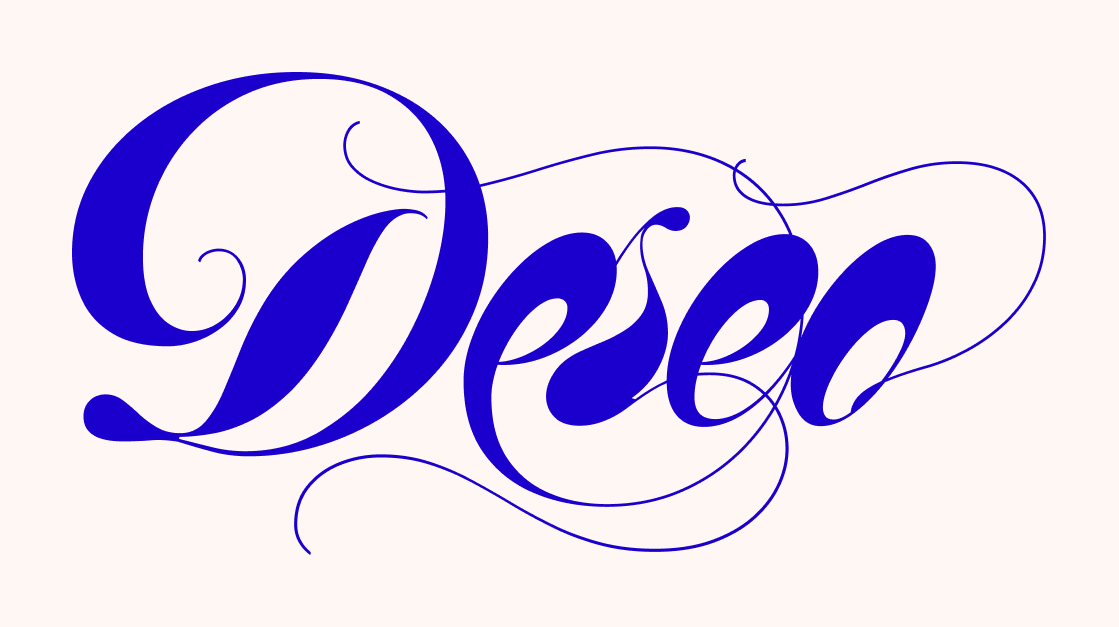
Goudy Text
- Classification: Blackletter
- Purpose: Display
Goudy Text is a historic blackletter typeface designed by Frederic Goudy. Featuring shaded variants, ligatures, and alternates, it works beautifully for logos, editorial headlines, branding, and designs that blend classic tradition with modern aesthetics.
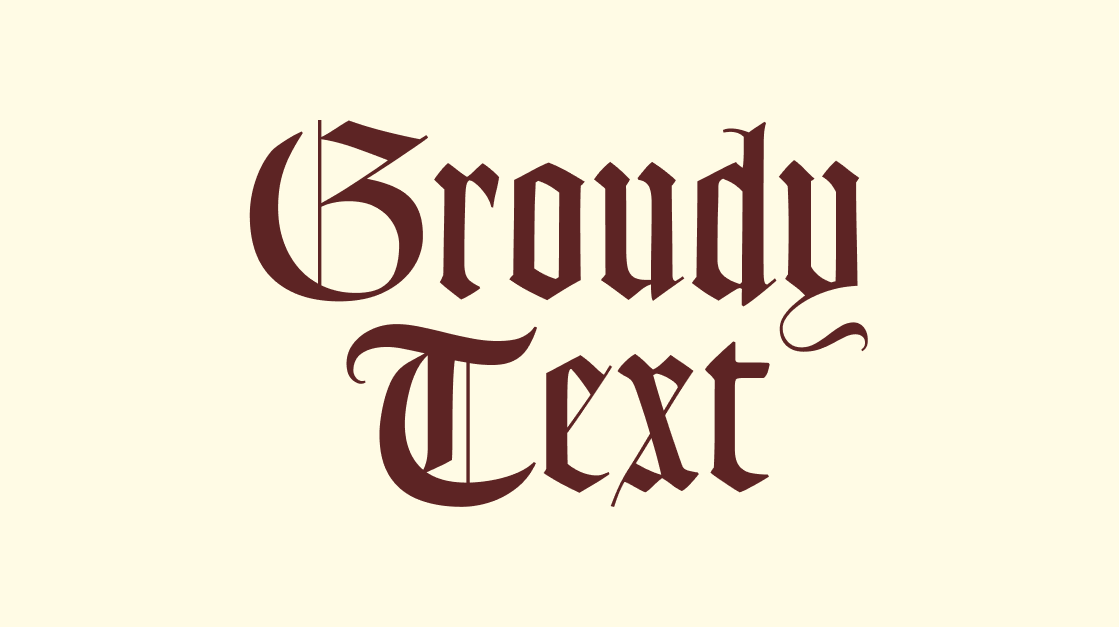
Devil’s Haircut
- Classification: Display
- Purpose: Display
Devil’s Haircut is a bold font duo with a strong punk attitude. Its expressive styles are well suited for album covers, packaging design, film titles, editorial layouts, and any project that demands rebellious, high-impact display typography.
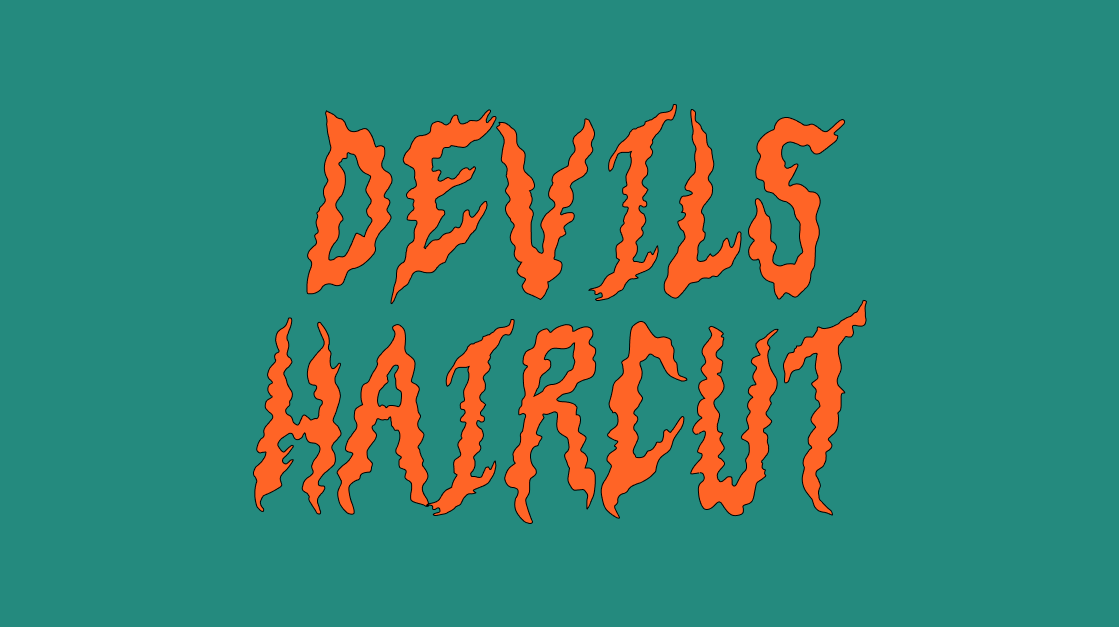
Jacobean Initials
- Classification: Decorative
- Purpose: Display
Jacobean Initials is a decorative initial font featuring framed and unframed styles, plus four-layer color options. It’s perfect for drop caps, stationery, invitations, food labels, album covers, and historic or vintage-inspired typography projects.
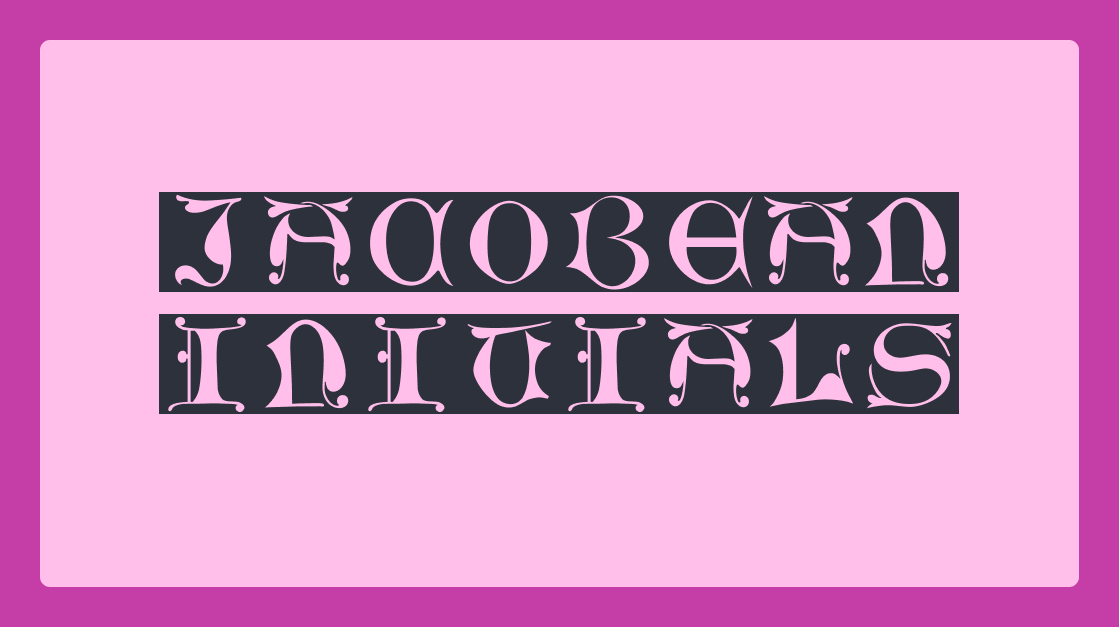
Ekamai
- Classification: Handwriting
- Purpose: Display
Ekamai is a friendly, plump script font with soft, playful curves. Its approachable personality makes it a great choice for food packaging, logos, magazine headlines, branding, and cheerful display typography.
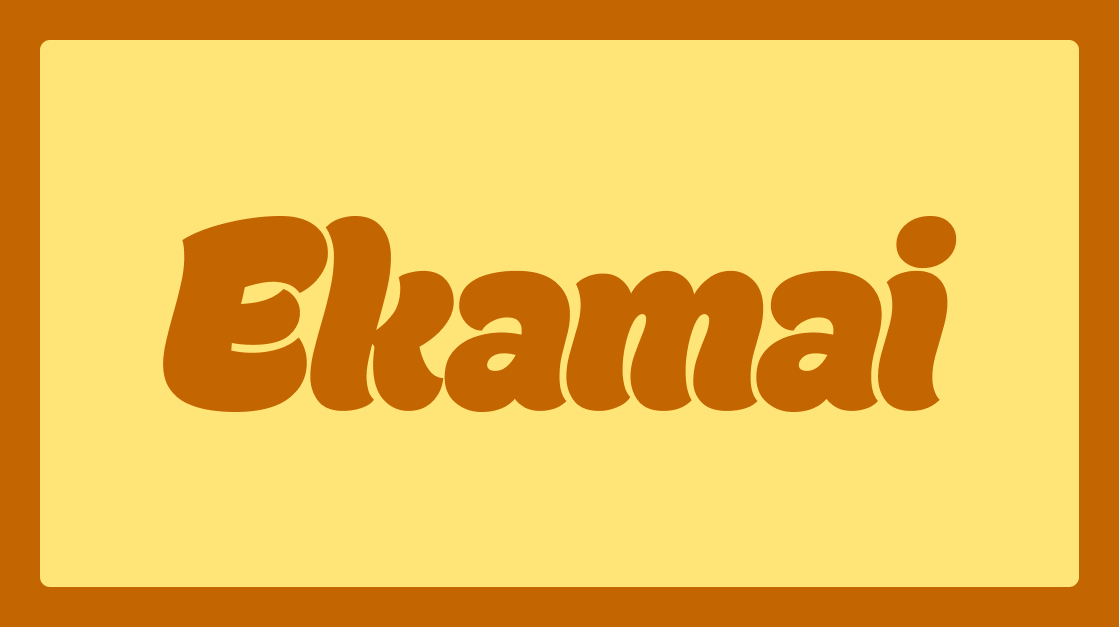
Ginsburg
- Classification: Sans Serif
- Purpose: Display
Ginsburg is a modern all-caps display font built from geometric shapes and wavy lines. With stylistic alternates included, it’s ideal for posters, headers, logos, TV titles, podcast covers, and bold, expressive branding design.
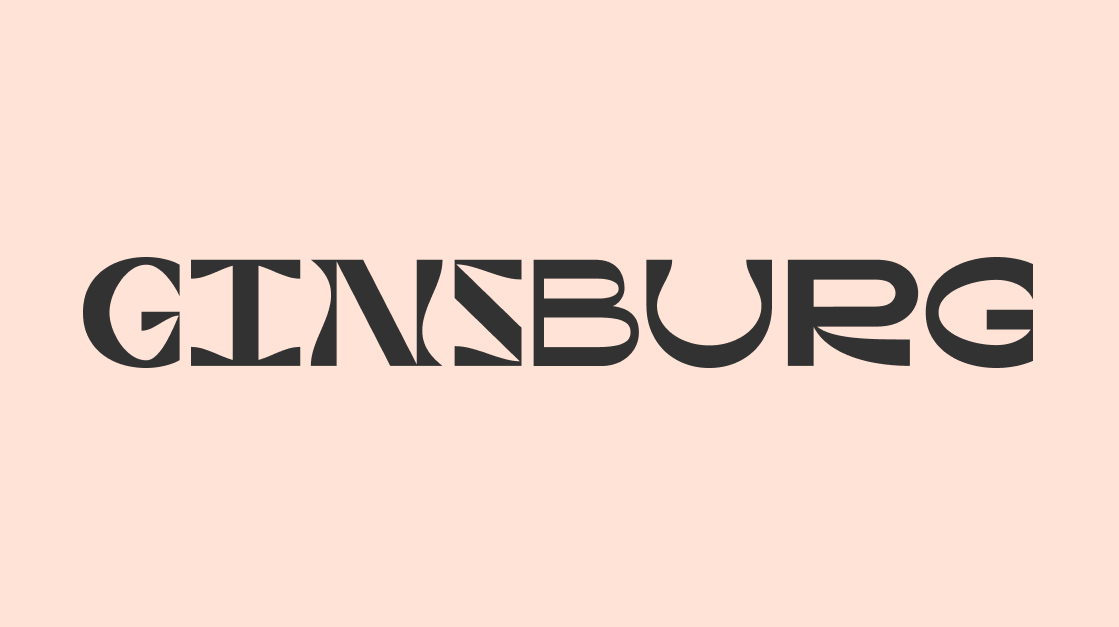
Iron Maiden
- Classification: Display
- Purpose: Display
Iron Maiden is a sharp heavy metal display font defined by aggressive angles and strong forms. It commands attention in album artwork, merchandise design, logos, and projects that need raw power and attitude.
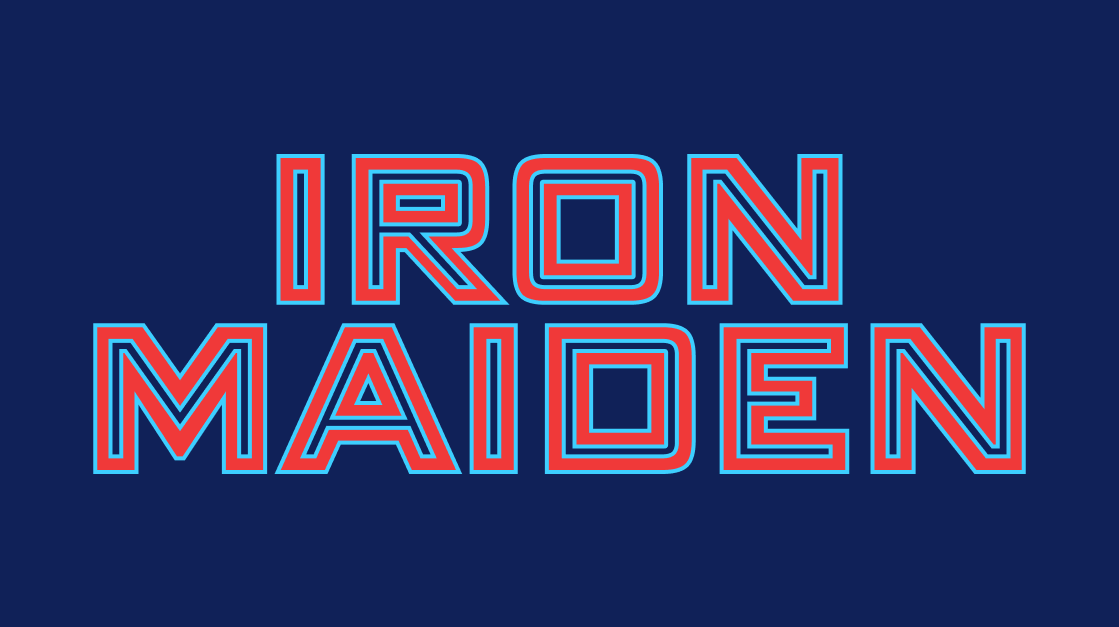
Dickens Tale
- Classification: Serif / Display
- Purpose: Display
Inspired by Victorian calling cards and copperplate engravings, Dickens Tale captures the charm of classic literature. Its intricate serifs make it a strong choice for book design, editorial layouts, and historic or story-driven visual identities.
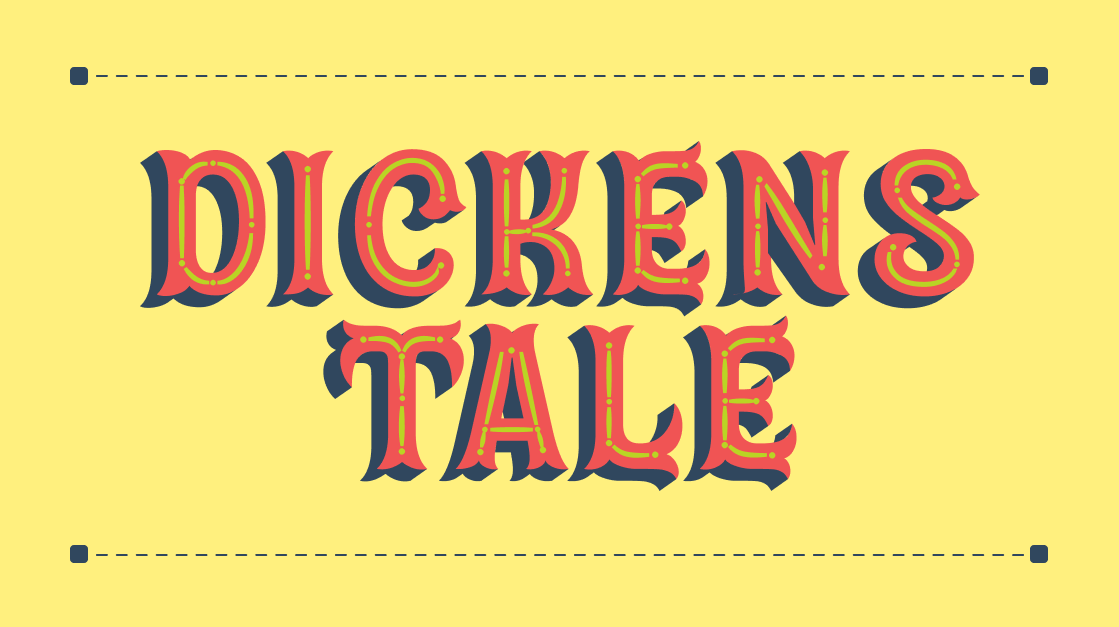
Aphrodite
- Classification: Script
- Purpose: Display
Aphrodite is a graceful script font with flowing curves and classic proportions. It’s well suited for luxury branding, refined headlines, and elegant editorial typography that requires sophistication and romance.
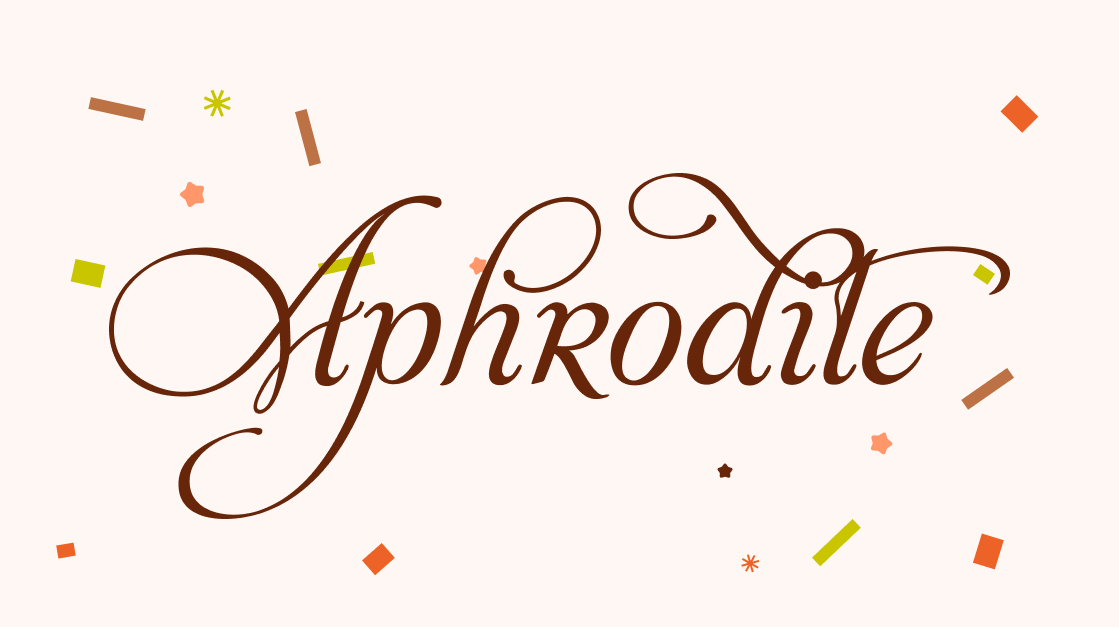
Glowworm
- Classification: Rounded Sans Serif
- Purpose: Display
Glowworm is luminous, playful, and friendly, featuring rounded shapes inspired by bubbly, worm-like forms. It works especially well for children’s books, quirky branding, educational materials, and approachable display typography.
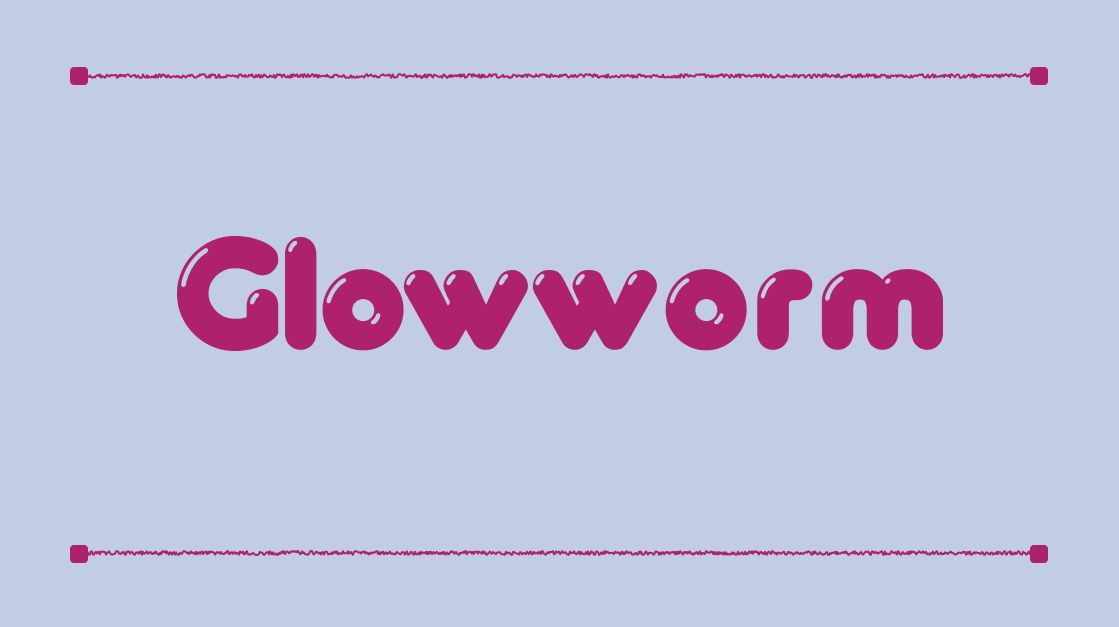
Acid Green
- Classification: Sans Serif
- Purpose: Display
Acid Green delivers bold geometric letterforms with a psychedelic edge. This font is ideal for experimental graphic design, posters, and modern branding projects that need to stand out instantly.